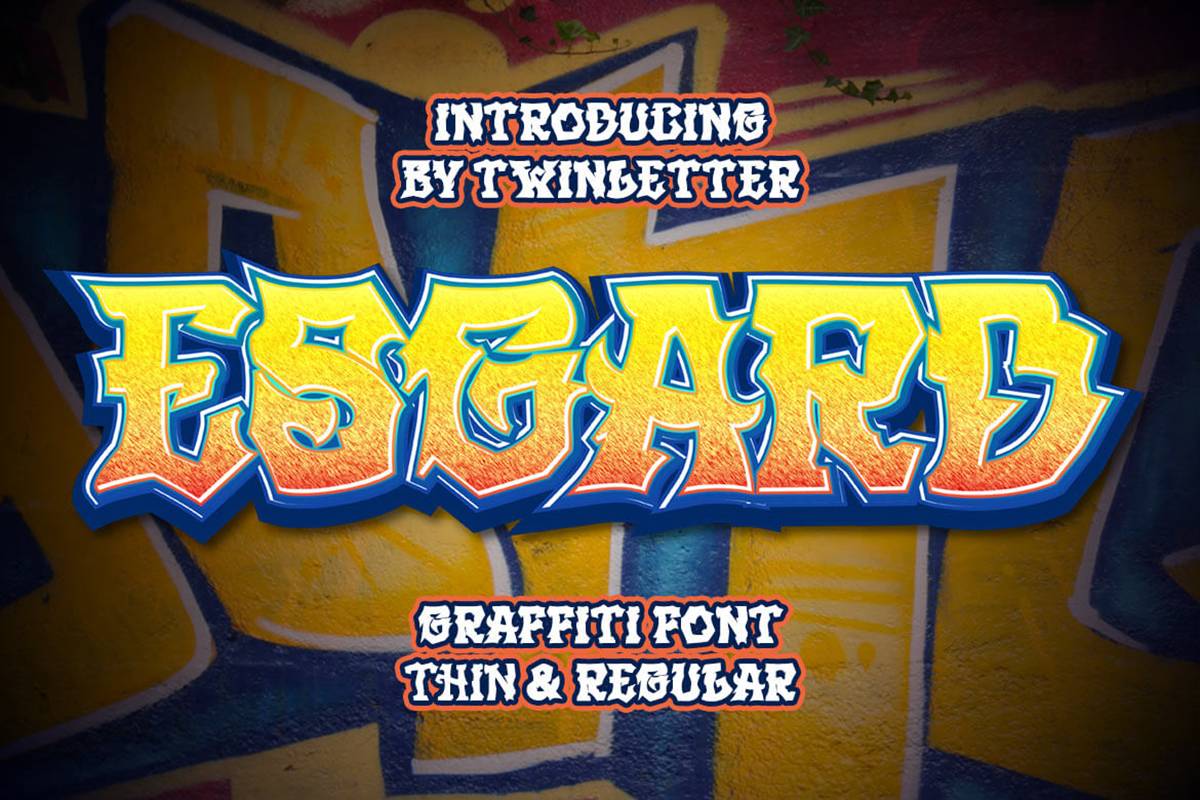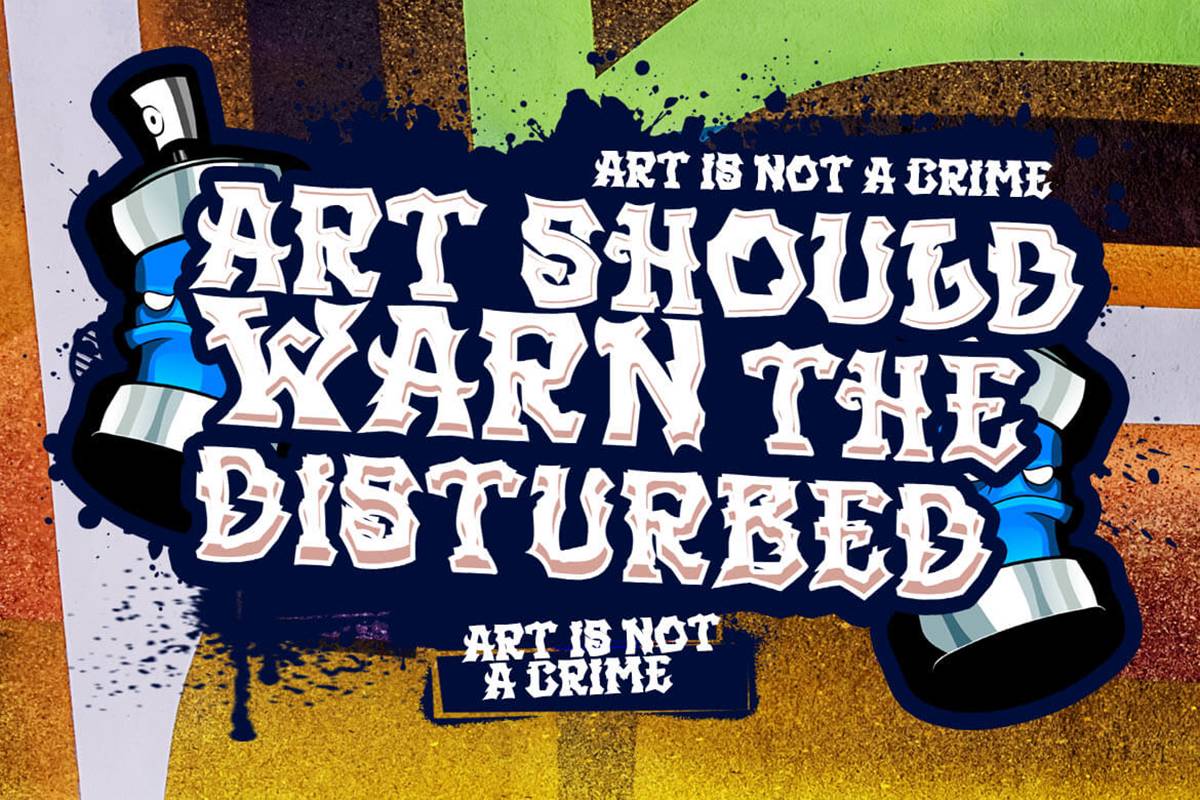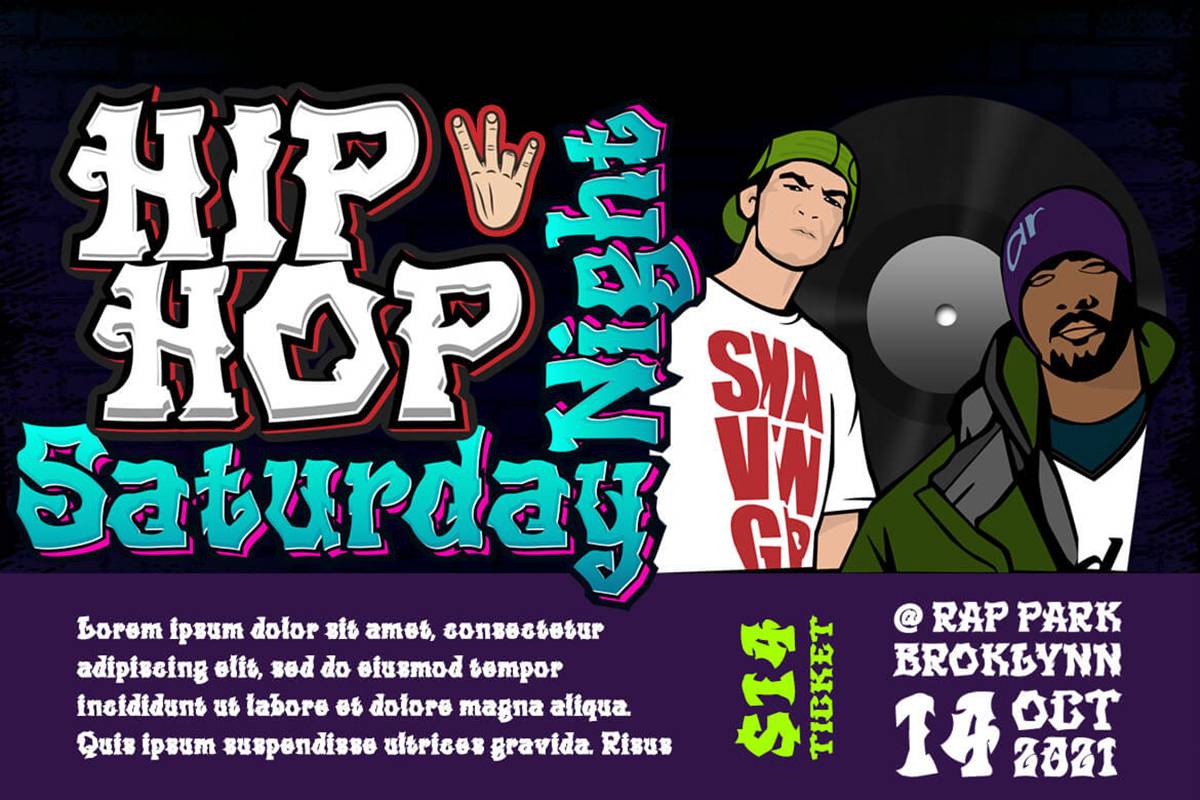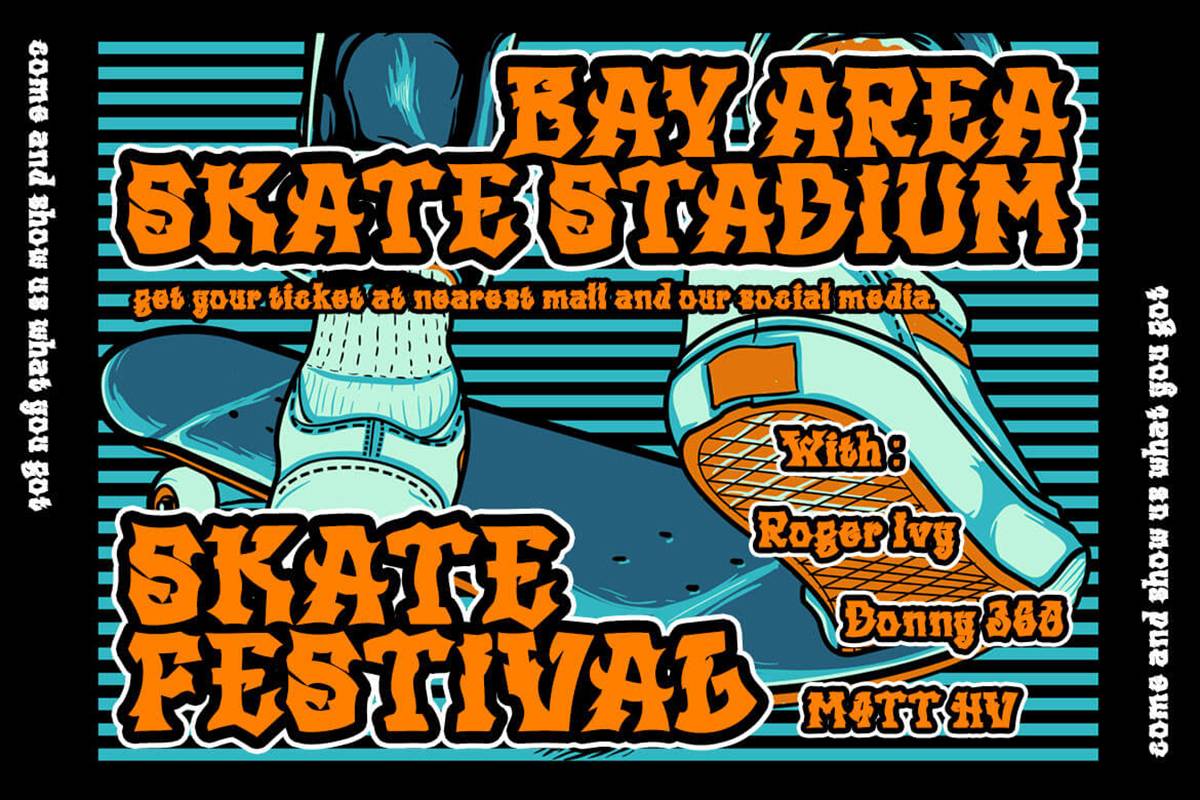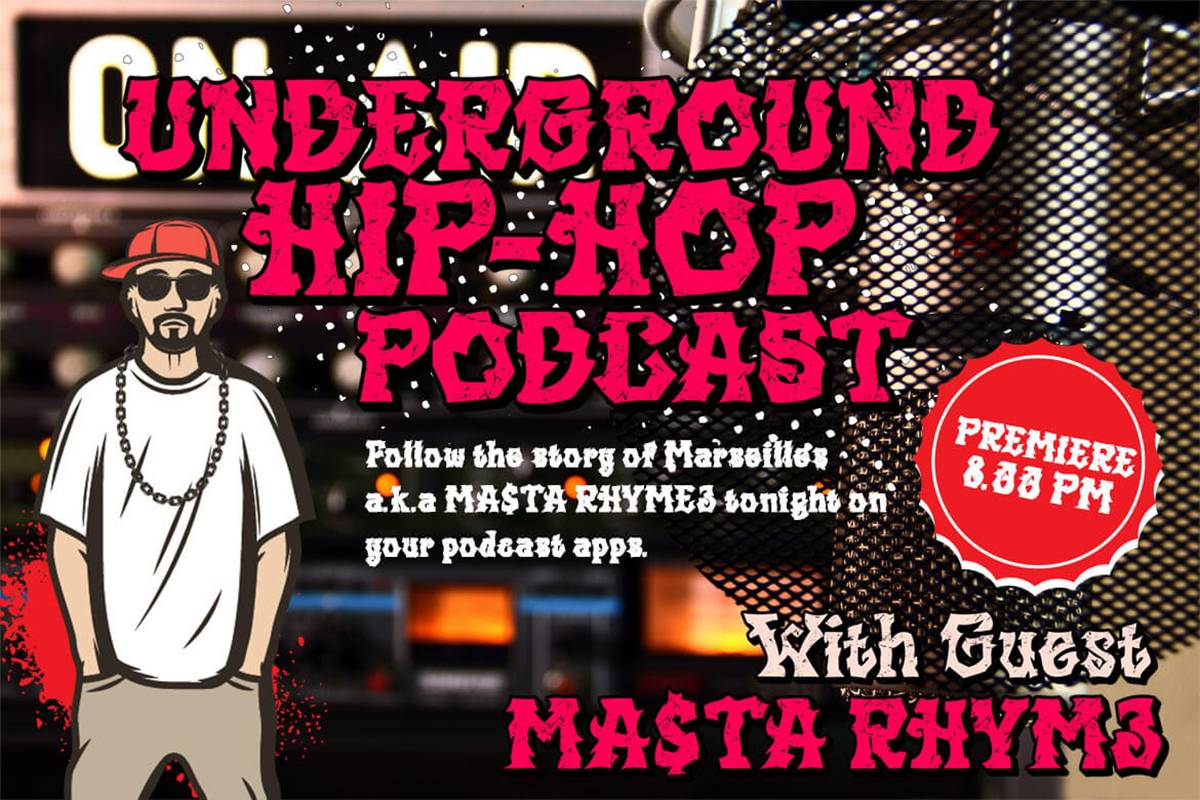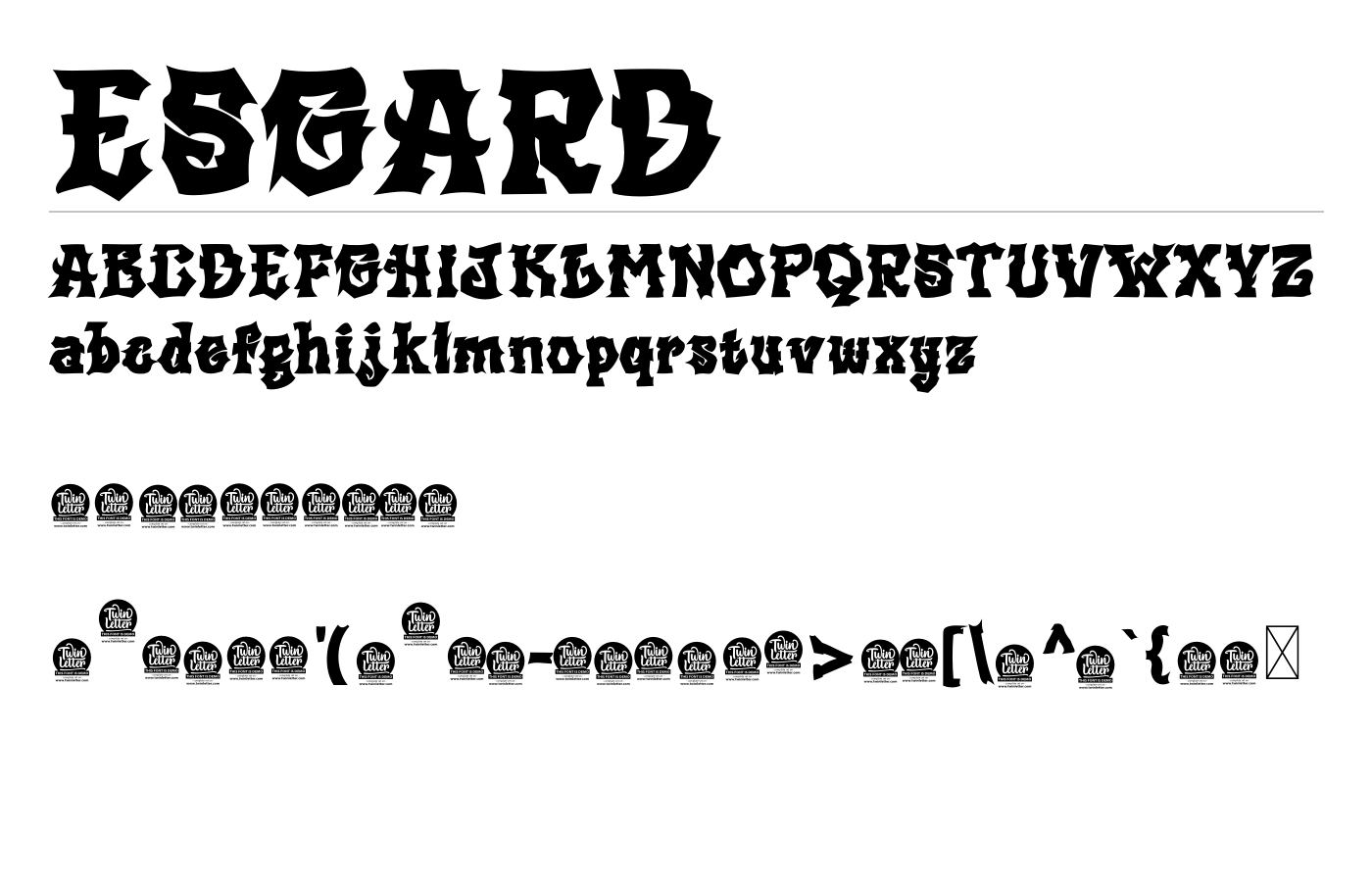
Esgard is a bold, blackletter-inspired serif font that carries a strong gothic and medieval vibe with its heavy weight and dramatic, jagged serifs. Its sturdy, angular letterforms and balanced contrast make it perfect for impactful headlines, vintage designs, or branding that aims to convey strength and tradition with a rebellious edge. This font works best in creative projects where a commanding and unique presence is desired.
Esgard Font
About Esgard Font